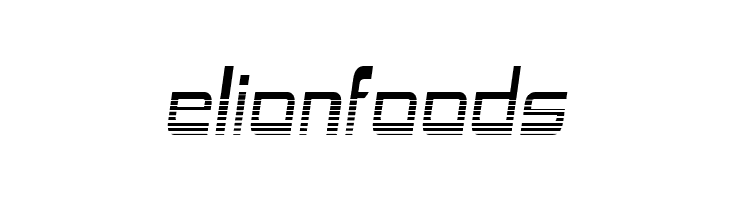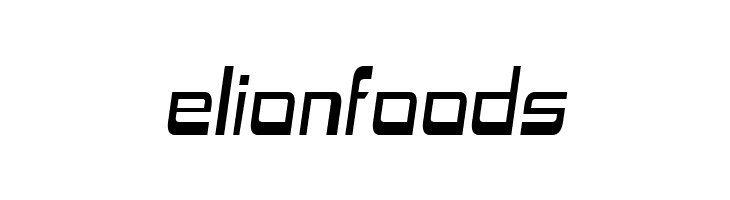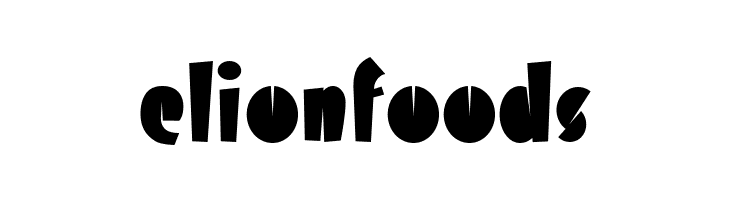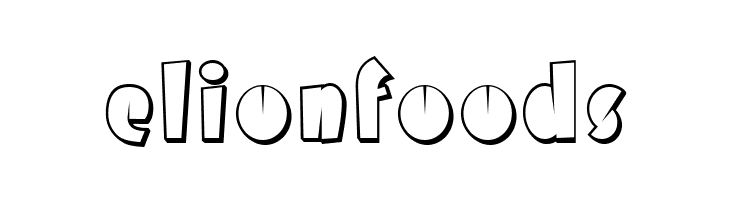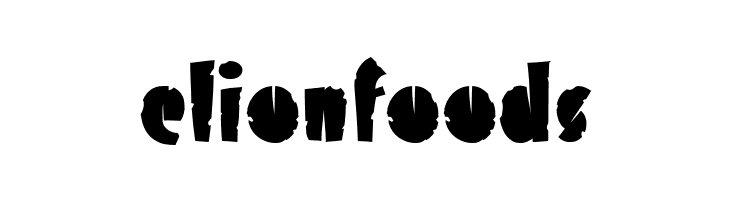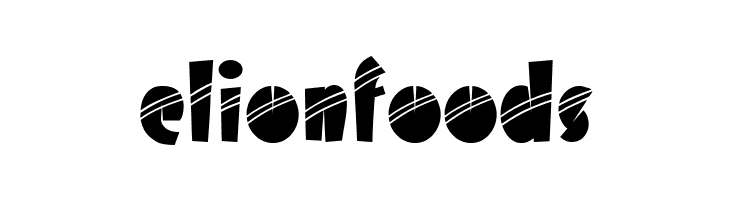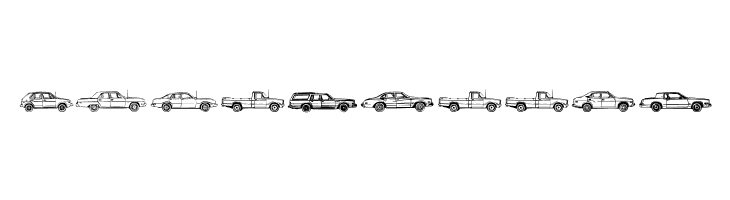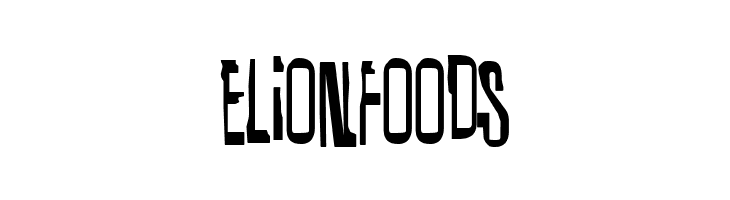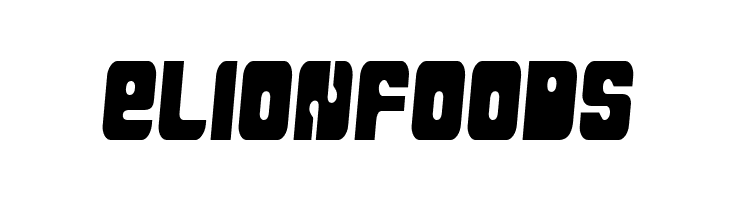
• AstronBoyVideo-Regular
A futuristic font with a striped, geometric design ideal for tech and creative projects.
• AstronBoy-Italic
A futuristic, italicized font with sharp angles and a sleek design.
• Airmole-Regular
A bold, geometric font with playful and dynamic character designs.
• AirmoleShaded-Regular
A bold, playful font with a shaded, three-dimensional effect.
• AirmoleAntique-Regular
A bold, vintage-style font with thick, irregular strokes and a handcrafted look.
• AirmoleStripe-Regular
A bold, striped, and geometric font with a playful and modern style.
• OilCrisisA-Regular
A decorative font featuring vintage car illustrations for each character.
• OilCrisisB-Regular
Automotive-themed decorative font with car and truck illustrations.
• Quixotic-Regular
A bold, condensed font with high contrast and a modern, distorted style.
• MassiveRetaliation-Regular
A bold, rounded font with a modern and slightly retro style.